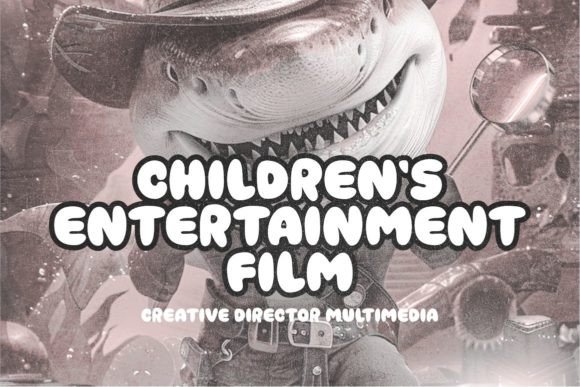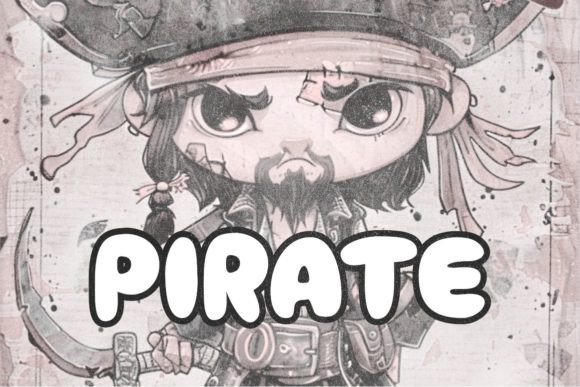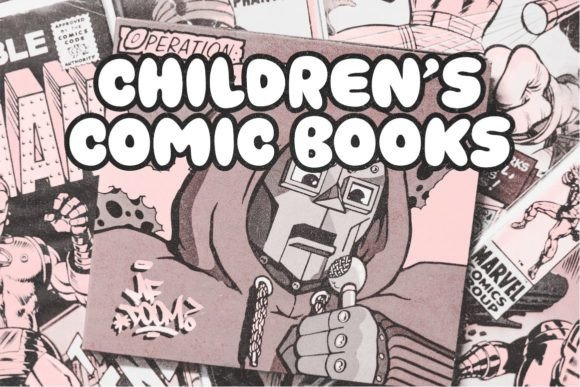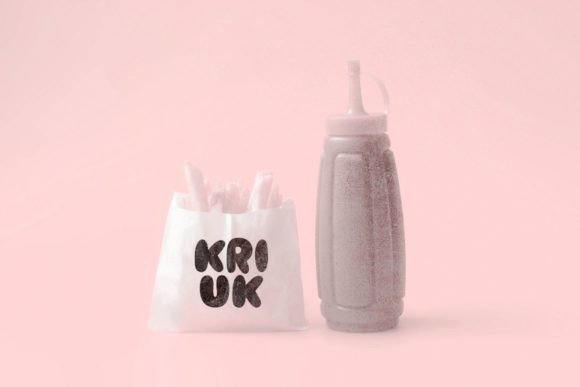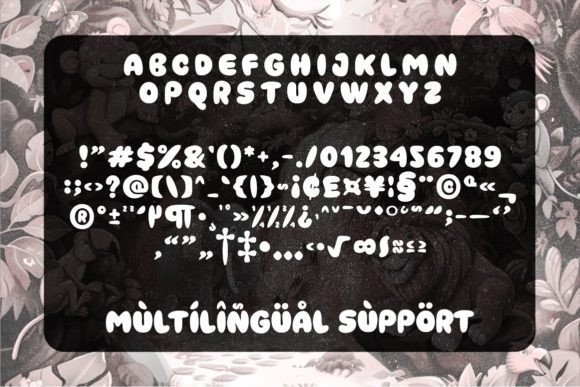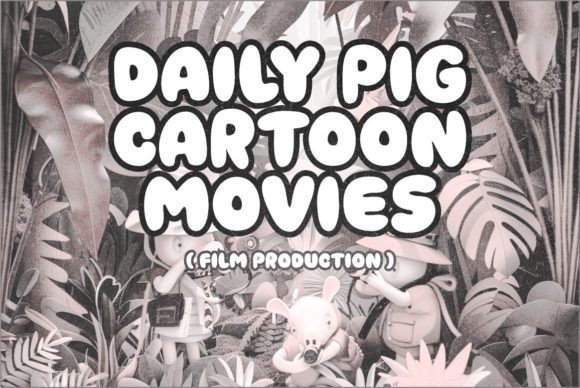
Cinema Cartoon Font: The Ultimate Display Font for Creative Projects
In the world of design, typography plays a crucial role in conveying the tone and personality of a brand or project. When it comes to creating visually appealing and engaging designs, the right font can make all the difference. This is where the Cinema Cartoon font comes in – a round, fat display font designed to capture the attention of your audience and leave a lasting impression.
What is Cinema Cartoon Font?
The Cinema Cartoon font is a carefully crafted display font that boasts a unique, rounded, and chubby design. Its distinctive style is perfect for creating eye-catching headlines, titles, and captions that exude a sense of fun, playfulness, and friendliness. Whether you’re working on a children’s book, a cartoon, or a brand identity project, this font is sure to become a favorite in your design arsenal.
Key Features of Cinema Cartoon Font
- Cool and Classy Design: The Cinema Cartoon font features a modern, stylish design that’s both cool and classy. Its rounded edges and smooth curves create a visually appealing aesthetic that’s perfect for a wide range of design projects.
- Contemporary and Attractive: This font is designed to be attention-grabbing and engaging, making it ideal for projects that require a fresh and contemporary look.
- Versatile and Adaptable: The Cinema Cartoon font is highly versatile and can be used for various design projects, including children’s books, cartoons, comics, branding, and more.
Ideal Use Cases for Cinema Cartoon Font
The Cinema Cartoon font is an excellent choice for a variety of design projects, including:
- Children’s Books and Baby-related Projects: The font’s playful and friendly design makes it perfect for children’s books, baby-related products, and kids’ entertainment projects.
- Cartoons and Comics: The Cinema Cartoon font is well-suited for cartoons, comics, and other forms of illustrated storytelling.
- Branding and Packaging: This font is ideal for creating eye-catching brand identities, packaging designs, and labels for food, candy, gum, and other consumer products.
- Accessories and Merchandise: The Cinema Cartoon font can also be used to create fun and playful designs for accessories, such as bags, toys, and other merchandise.
Why Choose Cinema Cartoon Font?
When it comes to selecting a font for your design project, there are many options to choose from. However, the Cinema Cartoon font stands out from the rest due to its:
- High-quality Design: The font is carefully crafted to ensure a high level of quality and attention to detail.
- Uniqueness and Originality: The Cinema Cartoon font boasts a distinctive design that’s sure to set your project apart from others.
- Ease of Use: This font is easy to read and use, making it perfect for a wide range of design applications.
In conclusion, the Cinema Cartoon font is an excellent choice for designers and crafters looking to add a touch of fun, playfulness, and friendliness to their projects. Its unique design, versatility, and high-quality craftsmanship make it an ideal font for a wide range of applications. Whether you’re working on a children’s book, a cartoon, or a brand identity project, the Cinema Cartoon font is sure to become a favorite in your design arsenal.